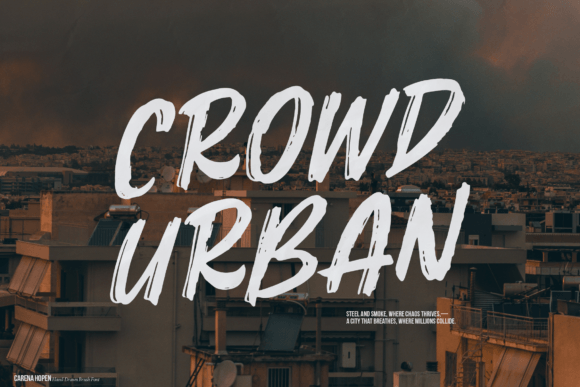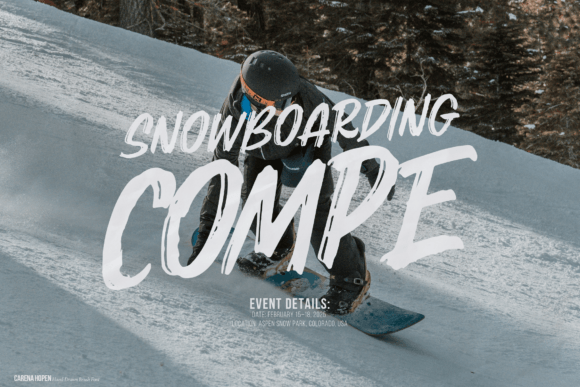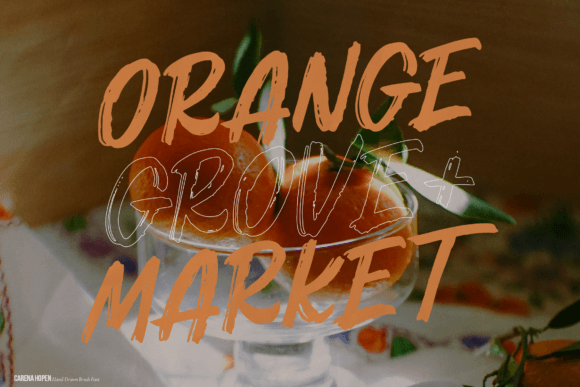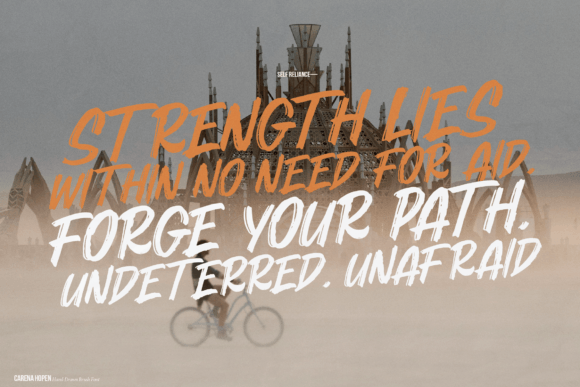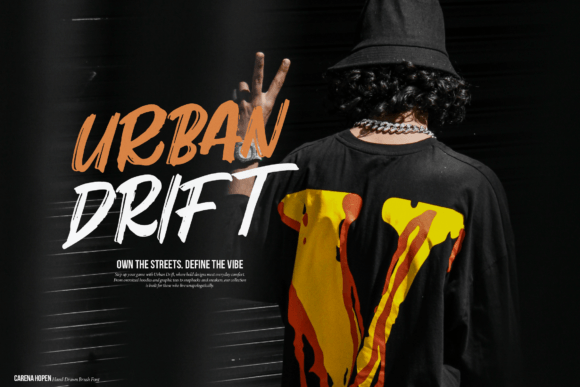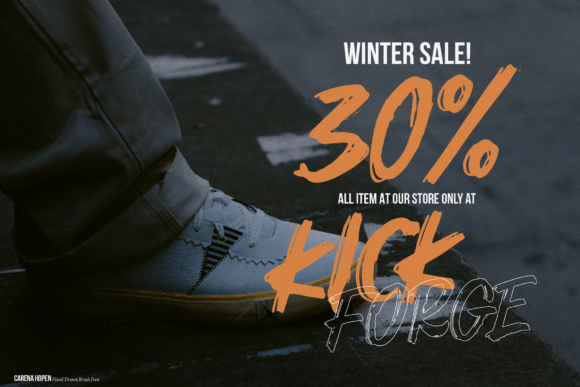
Introduction to Carena Hopen Font
Carena Hopen is a bold and dynamic hand-drawn brush font that exudes energy and raw authenticity.
Its rough, textured strokes give it a powerful, edgy look, perfect for posters, branding, headlines, social media graphics, and rebellious designs With its artistic flair and versatile alternates, Carena Hopen adds a creative, handcrafted vibe to any project.